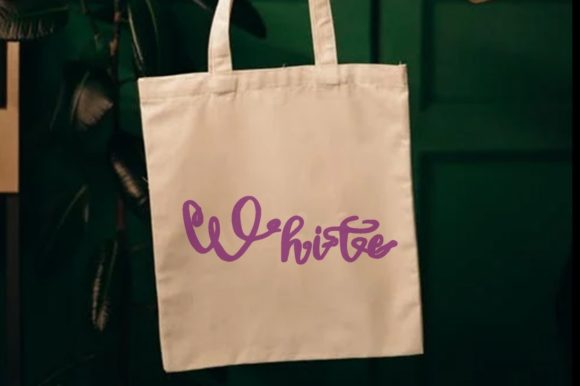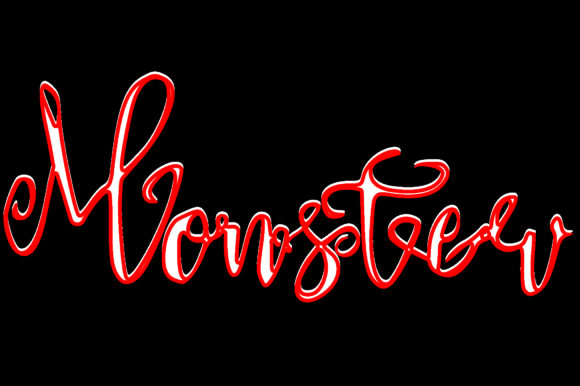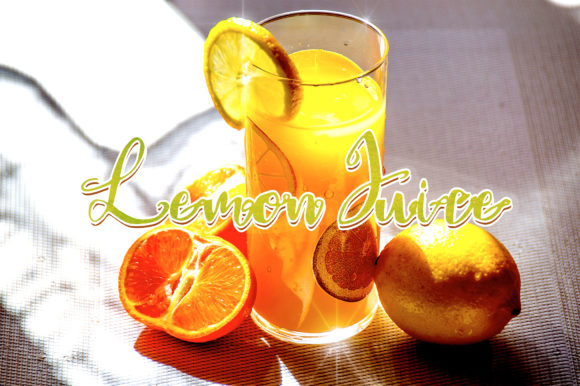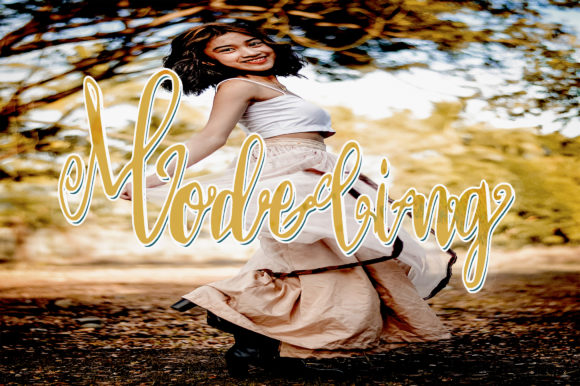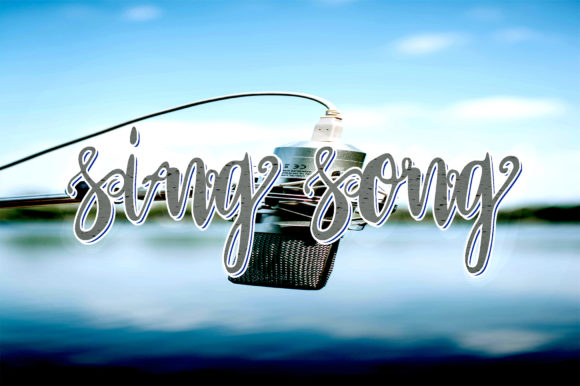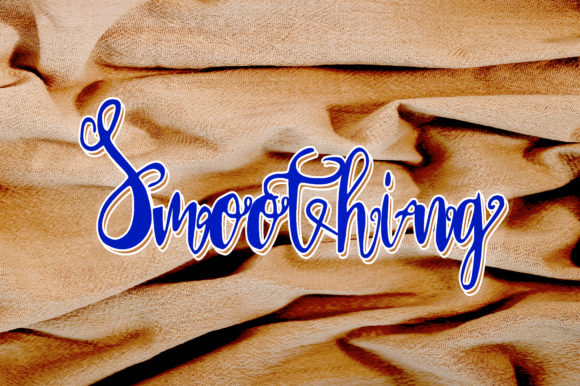
Unleashing Creativity with the Perfect Font
You’ve spent hours pouring your heart and soul into a design project, but something’s missing – that special something that sets it apart from the rest. You know exactly what we’re talking about: the perfect font. It’s that one elusive element that elevates your design from good to great, and we’re here to introduce you to the one that’ll make all the difference.
Meet the Hot Lava Font, a stunning free-flowing script font designed specifically for packaging, invitations, flyers, and event posters. With its beautiful and balanced character, this font fits seamlessly into any design pool, adding a touch of high-quality vibes to your work. Whether you’re a seasoned designer or just starting out, the Hot Lava Font is a valuable addition to your toolkit, offering PUA encoding for easy access to all its glyphs and swashes.
Hot Lava Font Key Features
- Font Family: Hot Lava Font is a unique, custom-designed font family.
- Font Size: Offers a range of font sizes, from 12 to 72 points, suitable for various design needs.
- Resolution: Supports high-resolution display, ideal for printing and digital applications.
- Unique Characteristics: Features a distinctive, lava-inspired design with bold lines, vibrant colors, and dynamic texture, making it perfect for adding a touch of excitement to designs.
Hot Lava Font Review
As a designer, I was excited to try out the Hot Lava Font, but my experience was a mixed bag. ✨ One thing that works well is the unique and playful design. The font is perfect for creating a fun and energetic vibe in your projects. It’s also quite versatile and can be used for a wide range of applications, from logos to advertising materials.
Another strength of the Hot Lava Font is its high level of customization options. You can adjust the font’s size, color, and even add special effects like glows and shadows. This level of control makes it easy to tailor the font to your specific needs.
However, there are some limitations to the font that I’d like to point out. ⚠️ Firstly, the font can be a bit overwhelming if used in large quantities. It’s best to use it sparingly to avoid visual fatigue. Secondly, the font’s performance can be slow in certain applications, especially when dealing with complex layouts.
Overall, I’d say the Hot Lava Font is a solid choice for designers who want to add a bit of whimsy to their projects. While it may not be the most sophisticated font, it’s certainly eye-catching and can help grab the user’s attention.
- Unique and playful design
- High level of customization options
- Perfect for creating a fun and energetic vibe
- Can be overwhelming if used in large quantities
- Performance issues in certain applications
Practical Application Guide for Hot Lava Font
To get the most out of the Hot Lava font, consider the following tips:
- Use it for bold, eye-catching headlines.
- Pair it with other bold fonts for a striking contrast.
The Hot Lava font is commonly used for:
- Video game and gaming-related designs.
- Fun, playful, and energetic designs.
- Creating a sense of urgency or excitement.
Alternatives to Hot Lava Font for Designers
1. Pixel Font
Pixel Font is a digital font that mimics the look of pixels, often used in retro-style designs. It’s suitable for projects that require a nostalgic feel, such as video game-inspired art or old-school computer graphics.
Compared to Hot Lava Font, Pixel Font has a more uniform pixelation, making it ideal for creating a consistent pixel art aesthetic. While Hot Lava Font has a more dynamic, lava-like effect, Pixel Font is better suited for designs that require a precise, pixel-perfect look.
2. Magma Font
Magma Font is a bold, fiery font that’s reminiscent of molten lava. It’s perfect for projects that require a dramatic, attention-grabbing effect, such as title sequences or promotional materials.